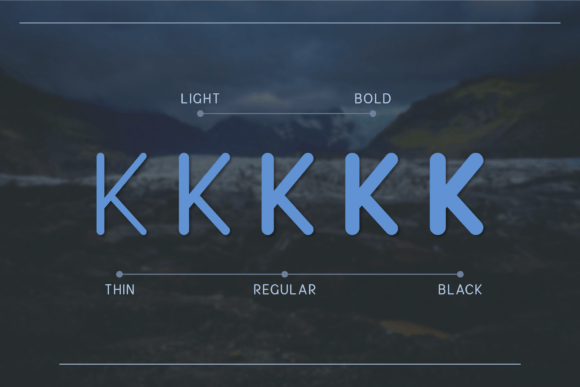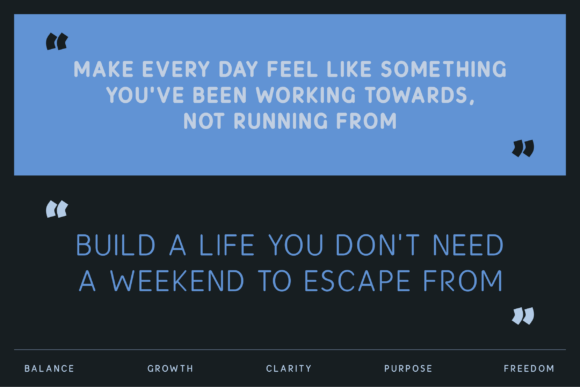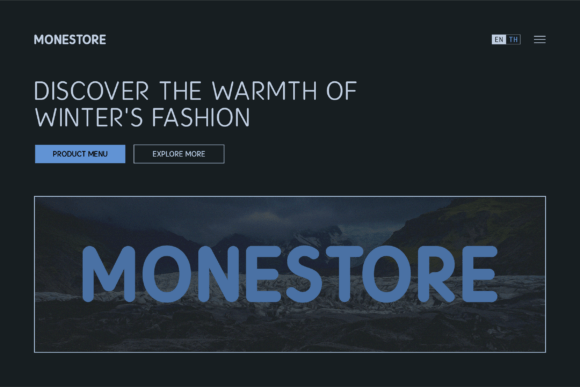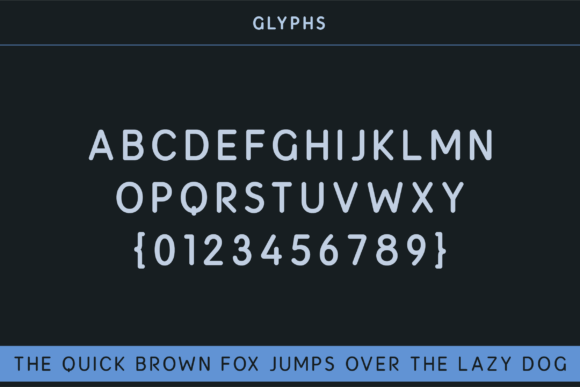
Fruitology Rounded Font: Elevate Your Designs with a Modern, Friendly Twist
In the world of typography, the right font can make all the difference in conveying your brand’s personality and message. For designers, crafters, and brand creators seeking a clean yet friendly visual identity, Fruitology Rounded is a game-changer. This modern all-caps sans serif font family is designed to bring clarity, warmth, and bold personality to your creative projects, making it an excellent addition to your typography arsenal.
The Unique Charm of Fruitology Rounded
Fruitology Rounded boasts soft-rounded edges and a sleek, geometric construction, striking a perfect balance between legibility and aesthetics. Available in five versatile weights – Thin, Light, Regular, Bold, and Black – this font family adapts seamlessly to various design needs. Whether you’re crafting a logo, packaging design, social media visuals, or high-impact headlines, Fruitology Rounded lends a polished, confident touch that elevates your work.
Designed for Clarity and Versatility
One of the standout features of Fruitology Rounded is its exceptional legibility. The soft-rounded edges add a touch of warmth and approachability, making it perfect for brands aiming to connect with their audience on a more personal level. The geometric construction ensures a sleek, modern look that works beautifully across digital and print mediums.
The five weights offered in the Fruitology Rounded font family provide designers with the flexibility to create visual hierarchies and add depth to their designs. From the delicate, Thin weight ideal for subtle captions and body text, to the robust, Black weight perfect for headlines and titles, there’s a weight to suit every design requirement.
Applications of Fruitology Rounded
The versatility of Fruitology Rounded makes it suitable for a wide range of applications. Here are a few ways you can leverage this font to enhance your creative projects:
- Logo Design: Create a lasting impression with a bold, confident logo that communicates your brand’s personality.
- Packaging Design: Stand out on store shelves with eye-catching packaging that combines clarity and visual appeal.
- Social Media Visuals: Engage your audience with social media graphics that are both informative and aesthetically pleasing.
- Headlines and Titles: Draw attention and convey importance with high-impact headlines that exude confidence and professionalism.
Why Choose Fruitology Rounded?
In a sea of fonts, Fruitology Rounded stands out for its unique blend of modernity, friendliness, and versatility. Here are a few reasons why designers and crafters are gravitating towards this font family:
- Unique Aesthetic: The soft-rounded edges offer a distinctive look that sets it apart from traditional sans serif fonts.
- High Legibility: Perfect for both digital and print applications, ensuring your message is conveyed clearly.
- Versatility: With five weights, you have the flexibility to use Fruitology Rounded across a wide range of design projects.
- Emotional Connection: The warmth and approachability of Fruitology Rounded help create an emotional connection with your audience.
Fruitology Rounded is more than just a font – it’s a design solution that brings a modern, friendly twist to your creative projects. Its unique blend of clarity, warmth, and bold personality makes it an invaluable asset for designers, crafters, and brand creators looking to make a lasting impression. Whether you’re aiming for a clean, friendly visual identity or seeking a versatile font that adapts to various design needs, Fruitology Rounded is an excellent choice. Elevate your designs with the distinctive charm and versatility of Fruitology Rounded and discover the difference it can make in your work.